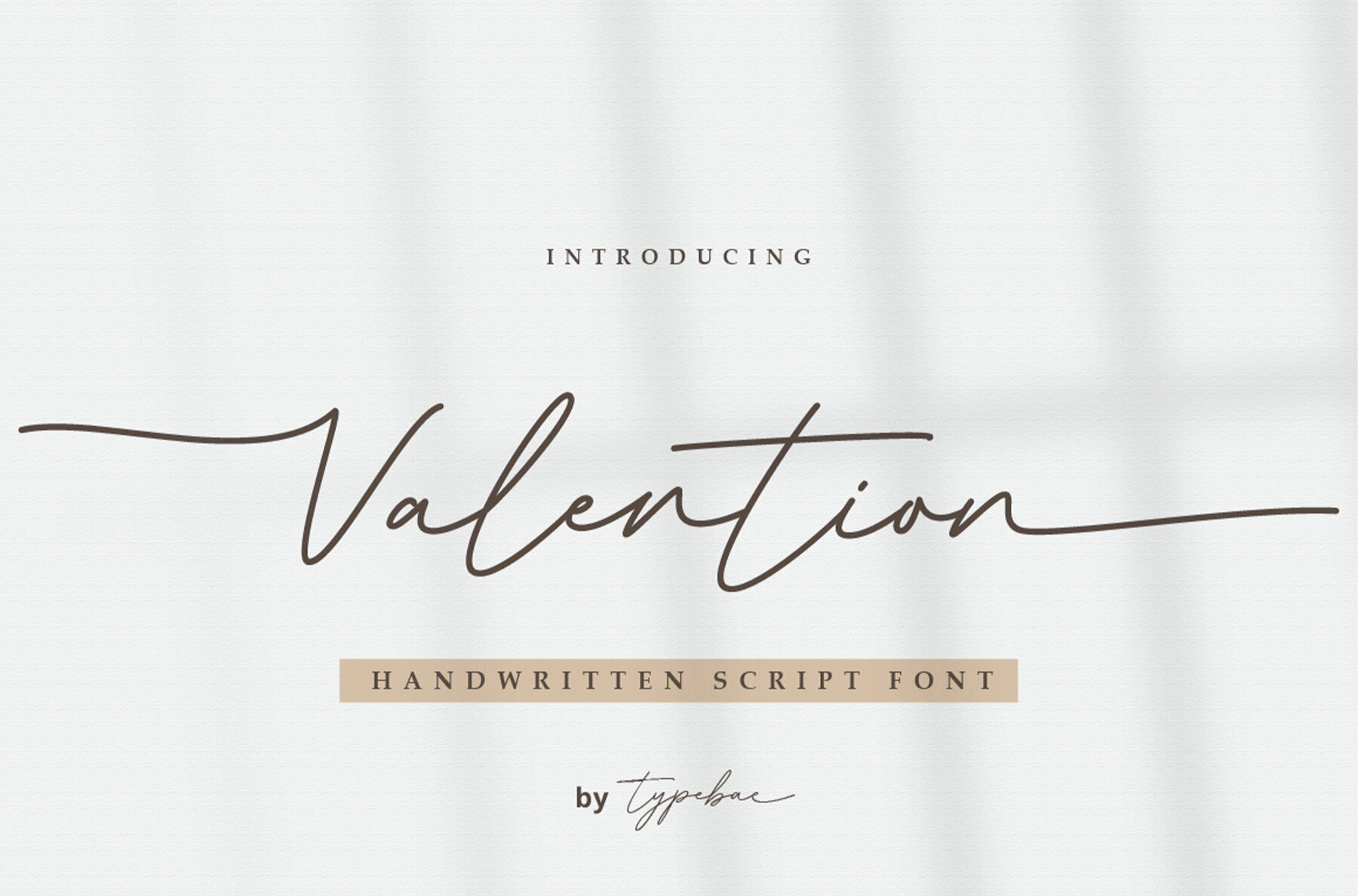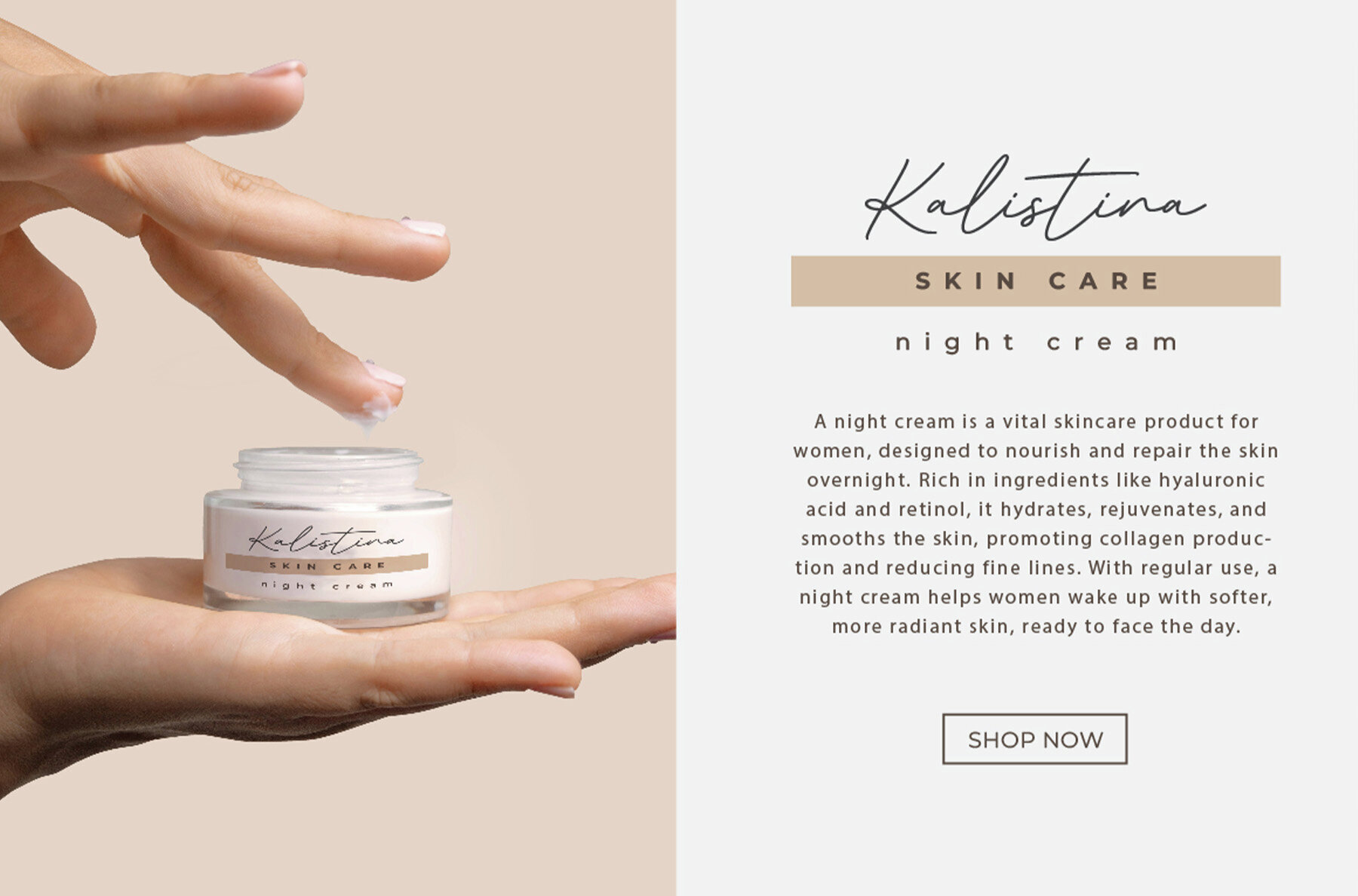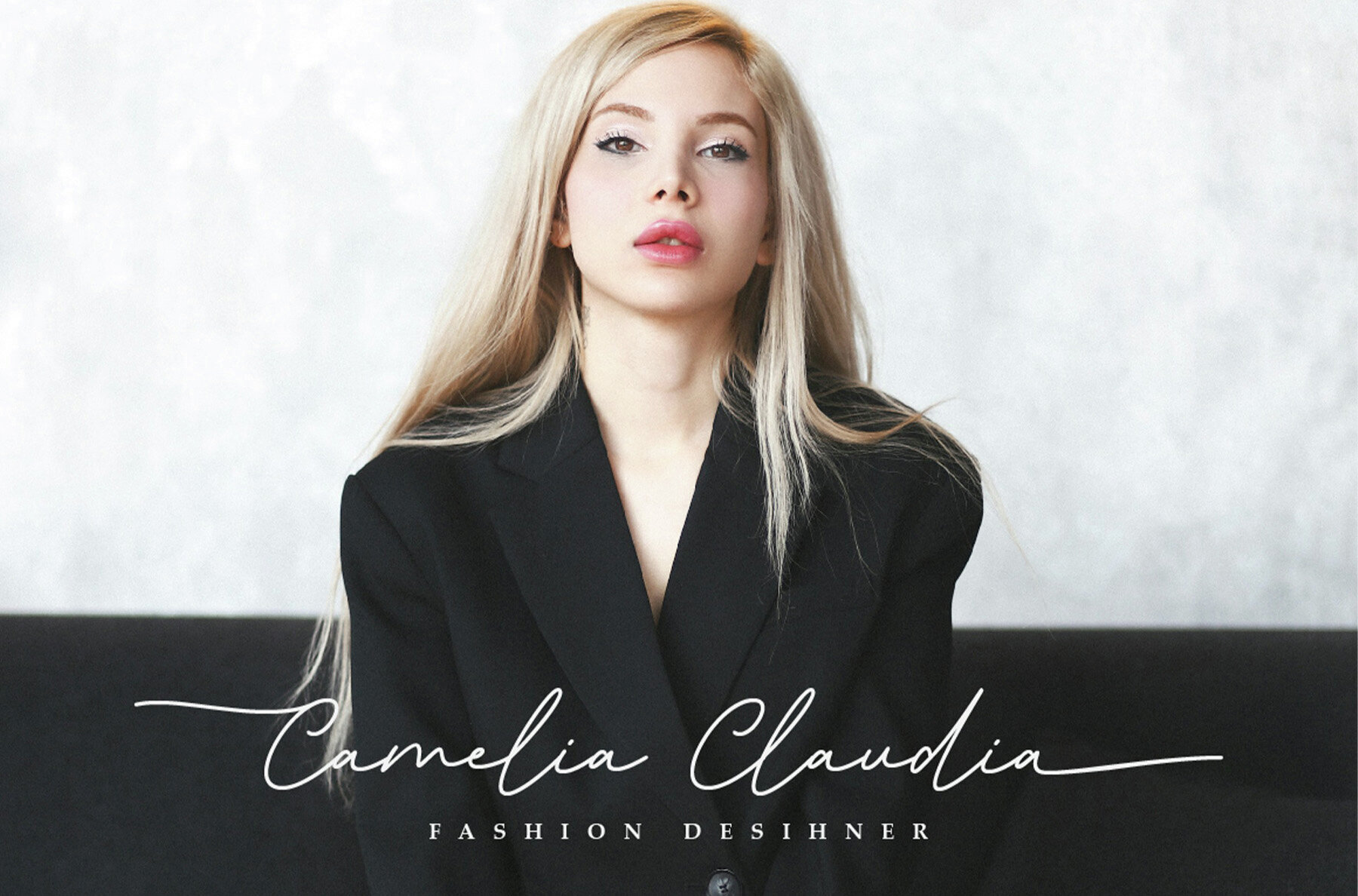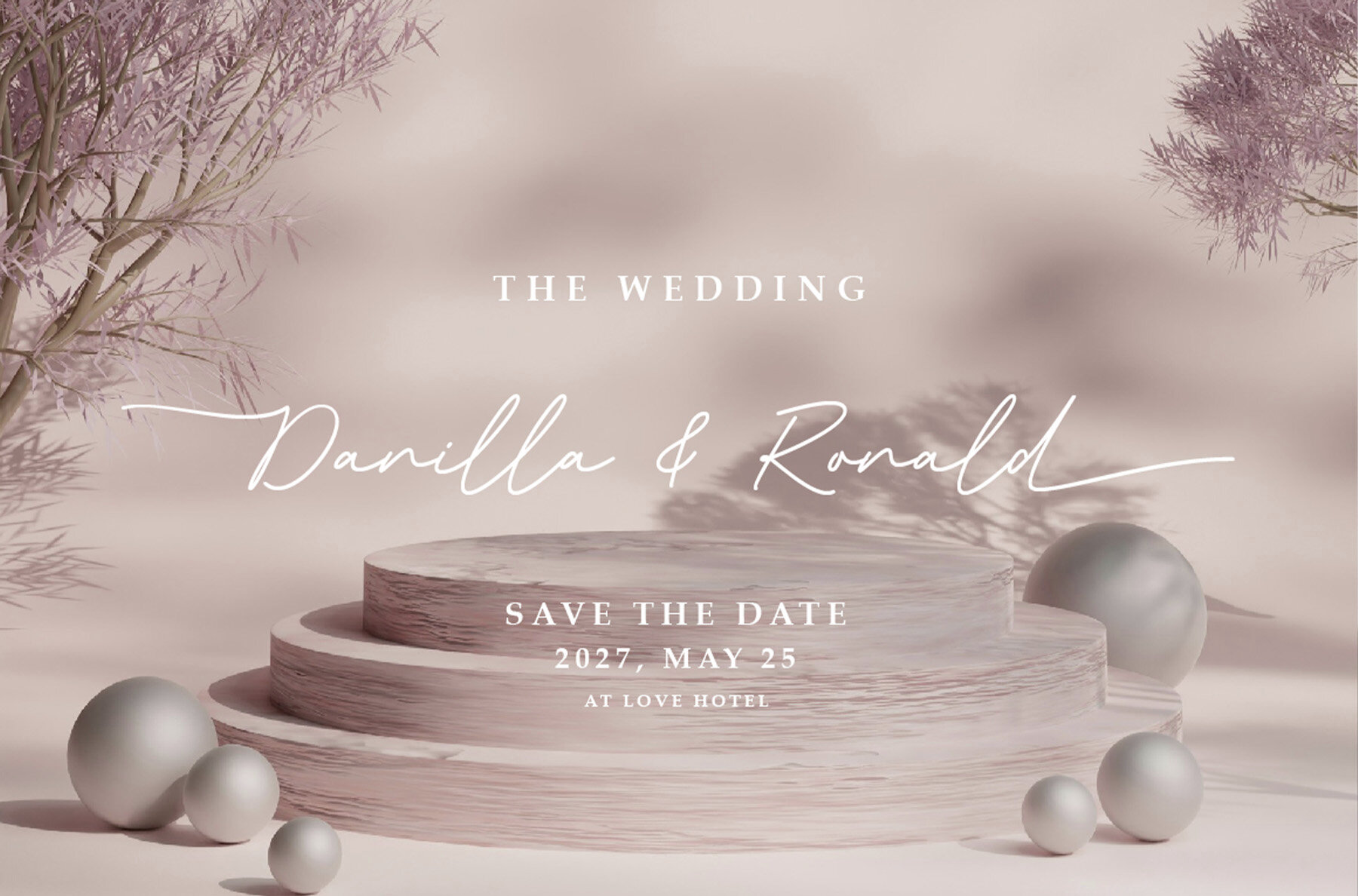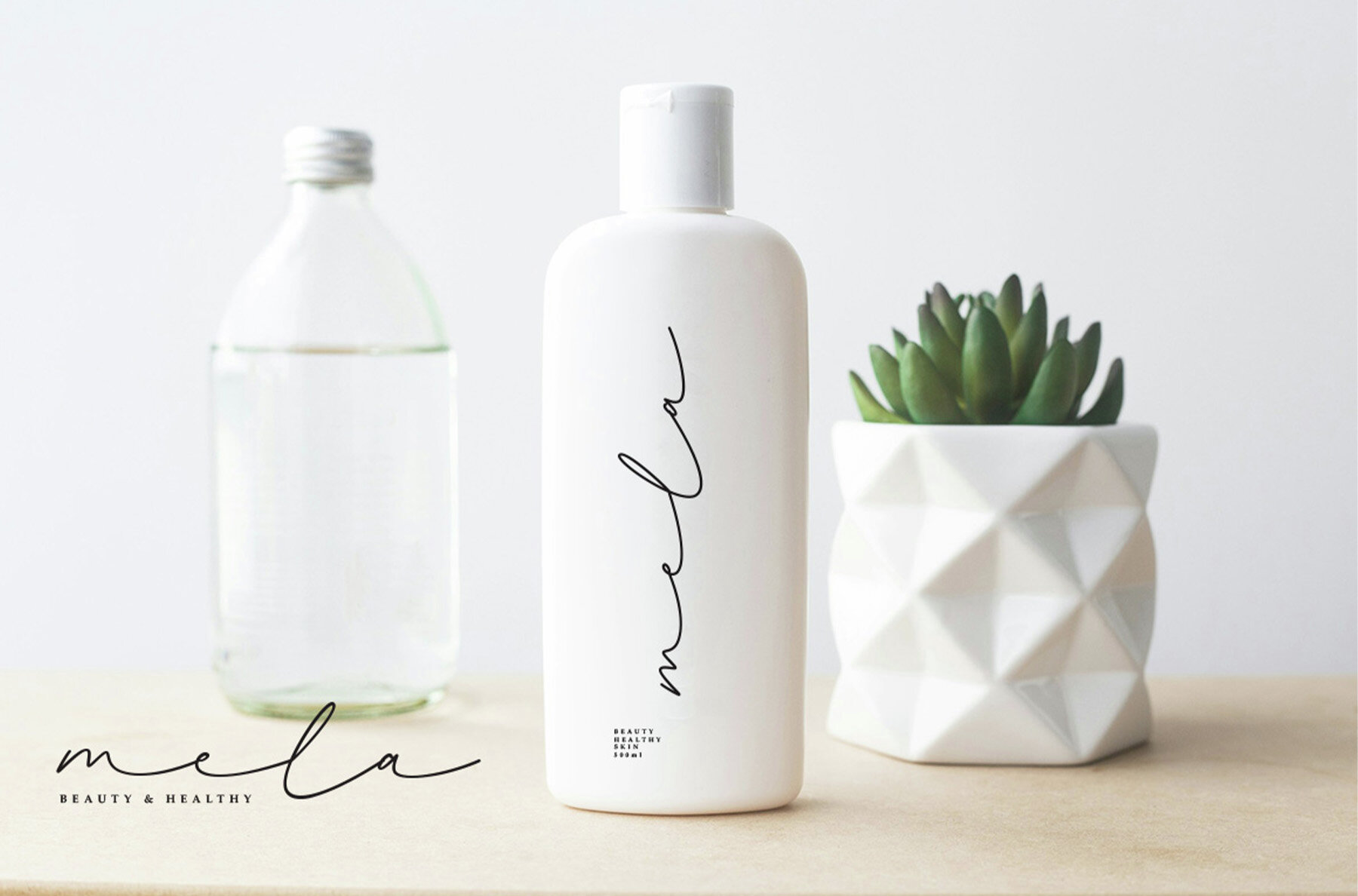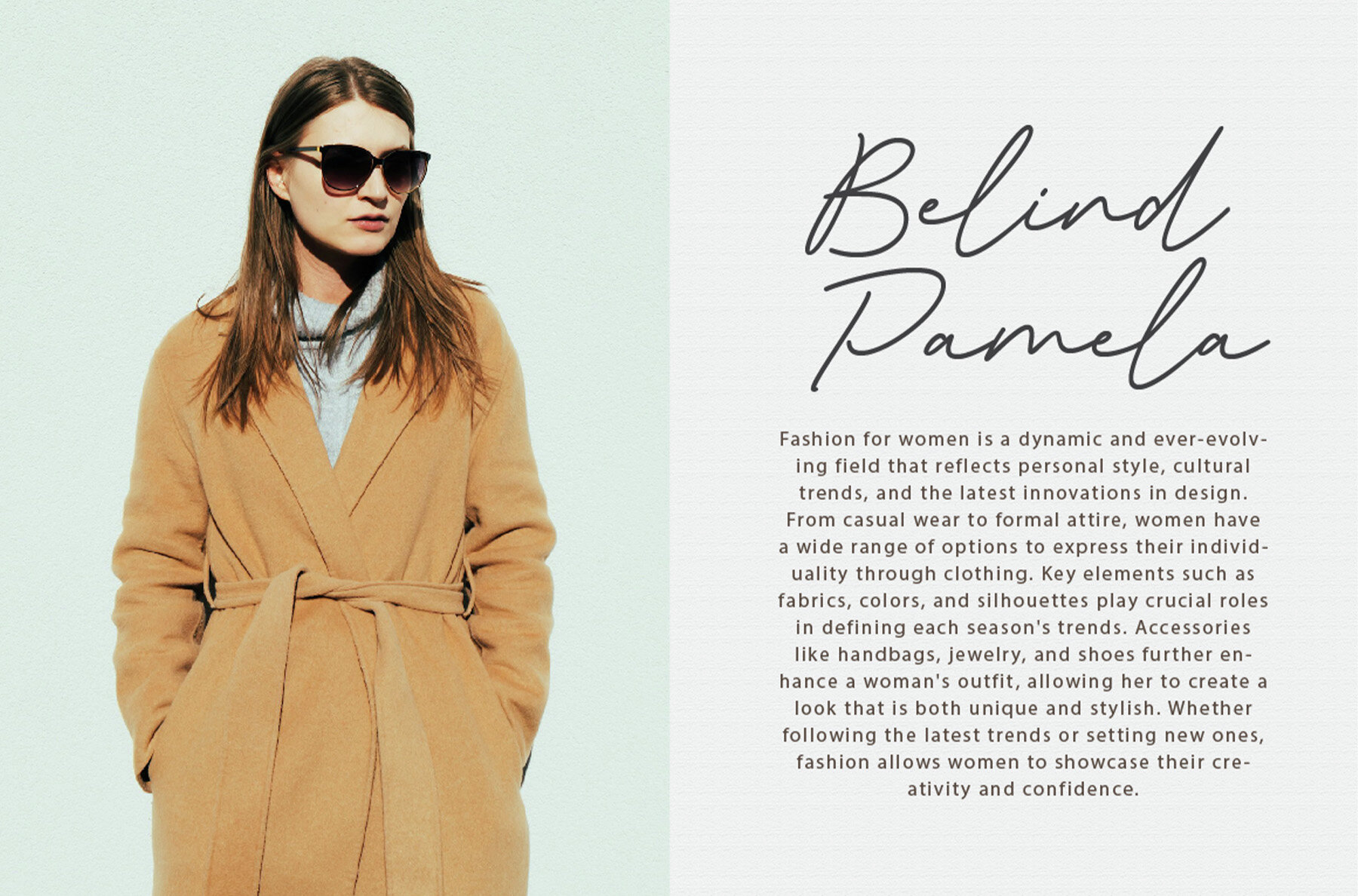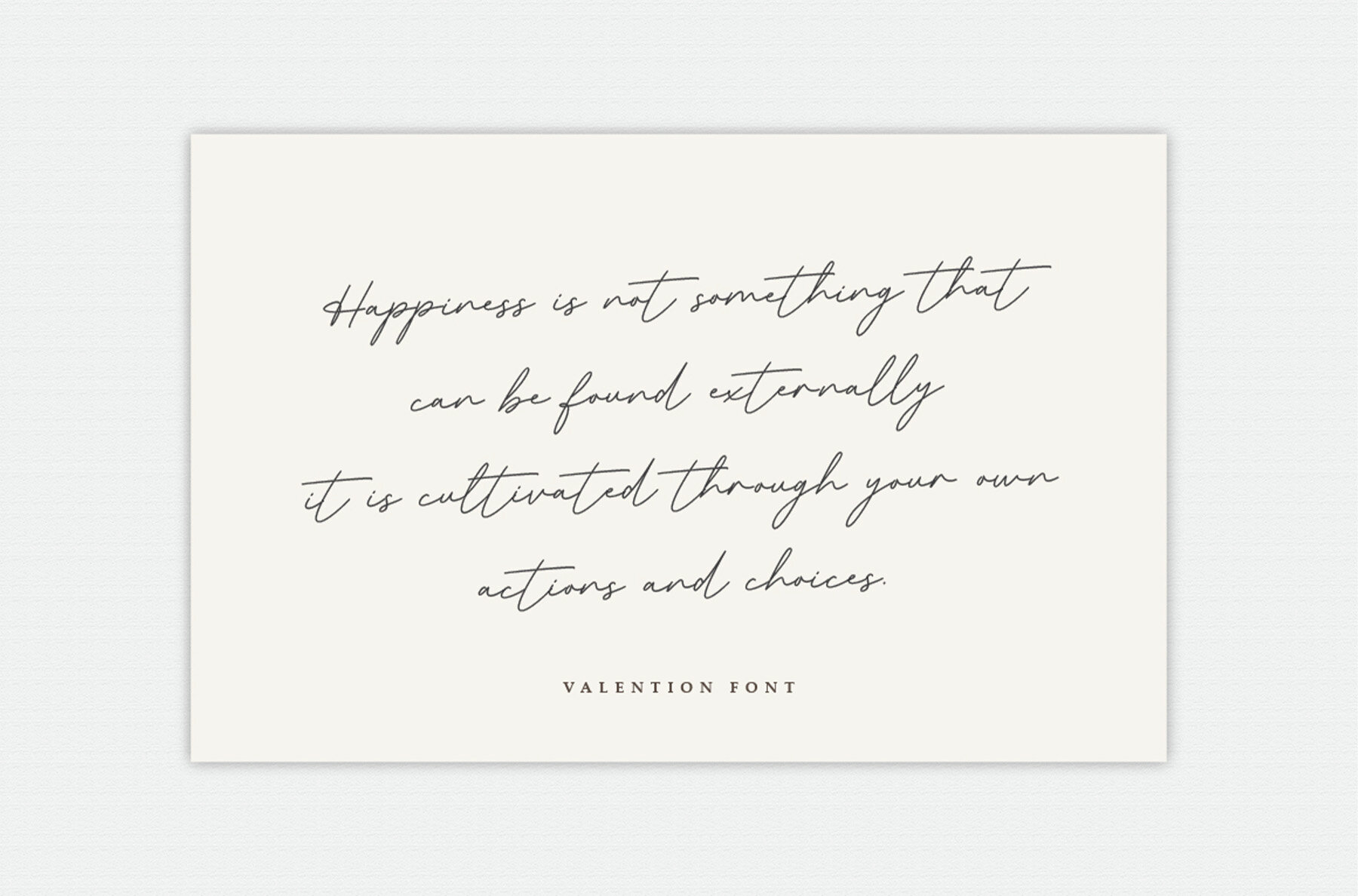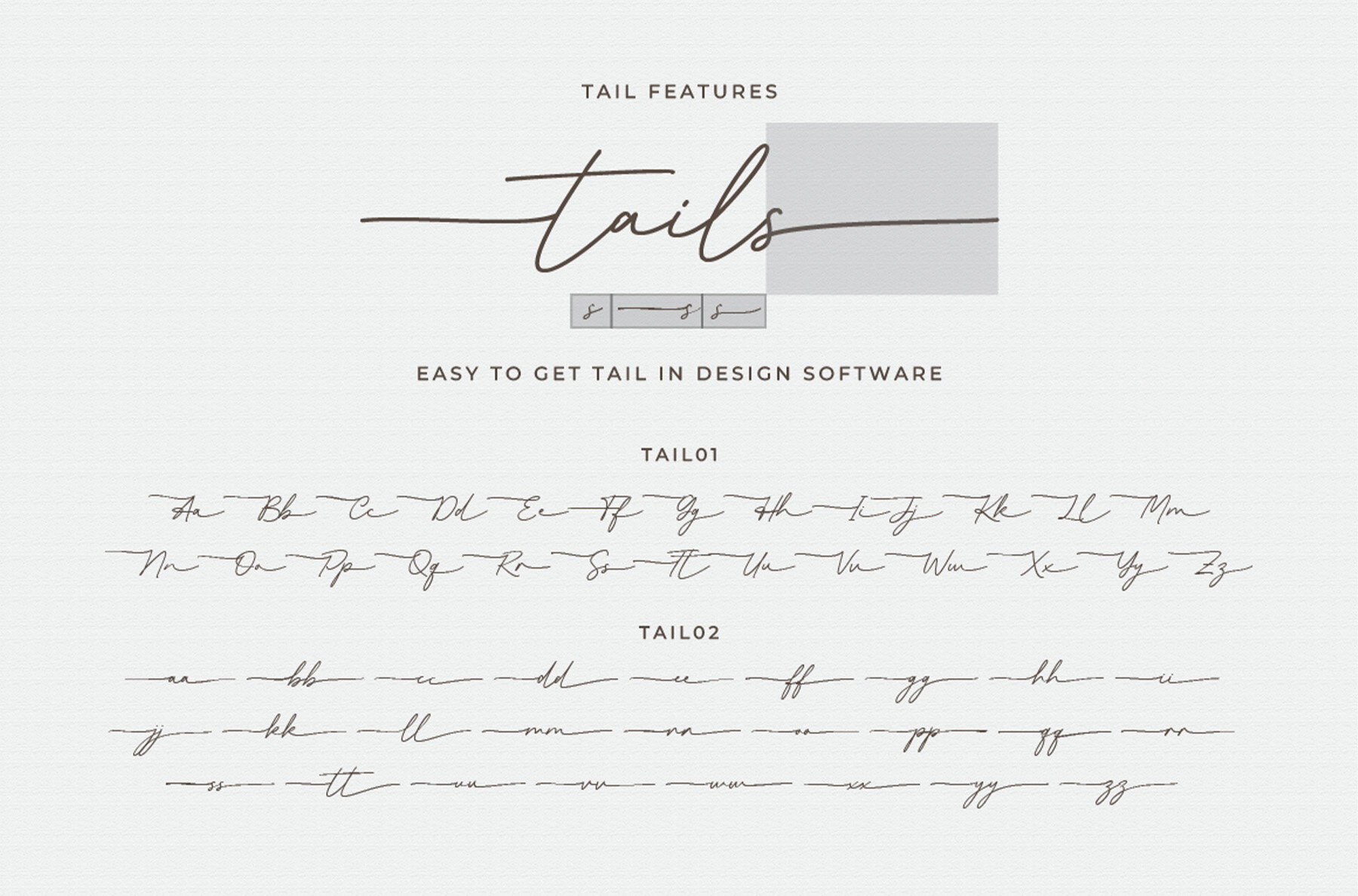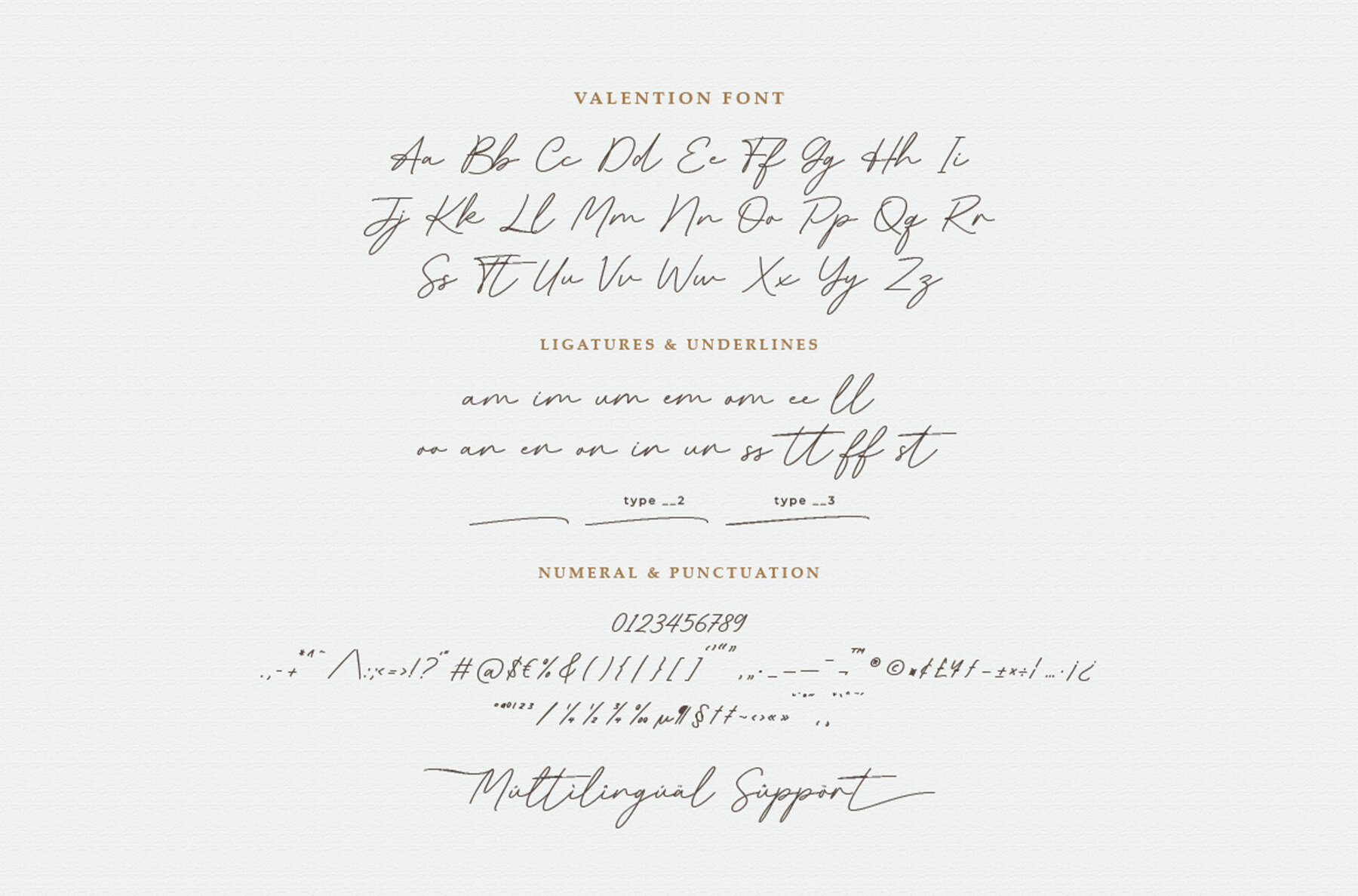
Valention Font
Valention captures the fluid beauty of modern script handwriting with a refined, romantic edge. Each letter flows seamlessly, accented by heart-shaped connecting tails and expressive alternates. The font’s distinctive curves and eye-catching swashes bring a personal, elegant touch, making it ideal for branding, signature logos, invitations, or headlines that need character and warmth. Access a versatile range of stylistic alternates and ligatures with ease, thanks to full PUA encoding. Valention supports multilingual characters for use across various design projects worldwide. Its graceful rhythm and clean structure help creative work stand out while retaining readability and charm.Valention Script Font: Chic Handwritten Elegance